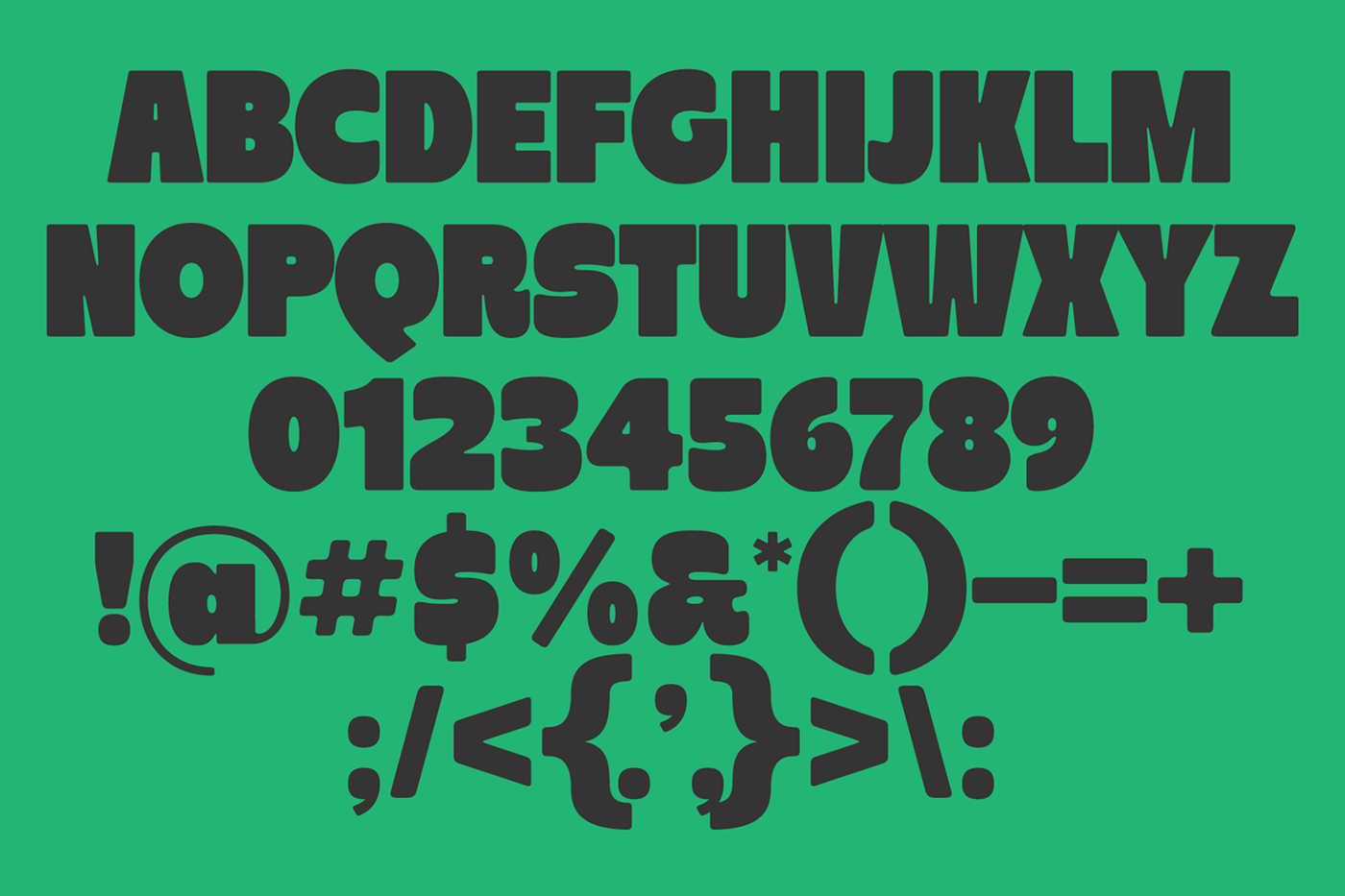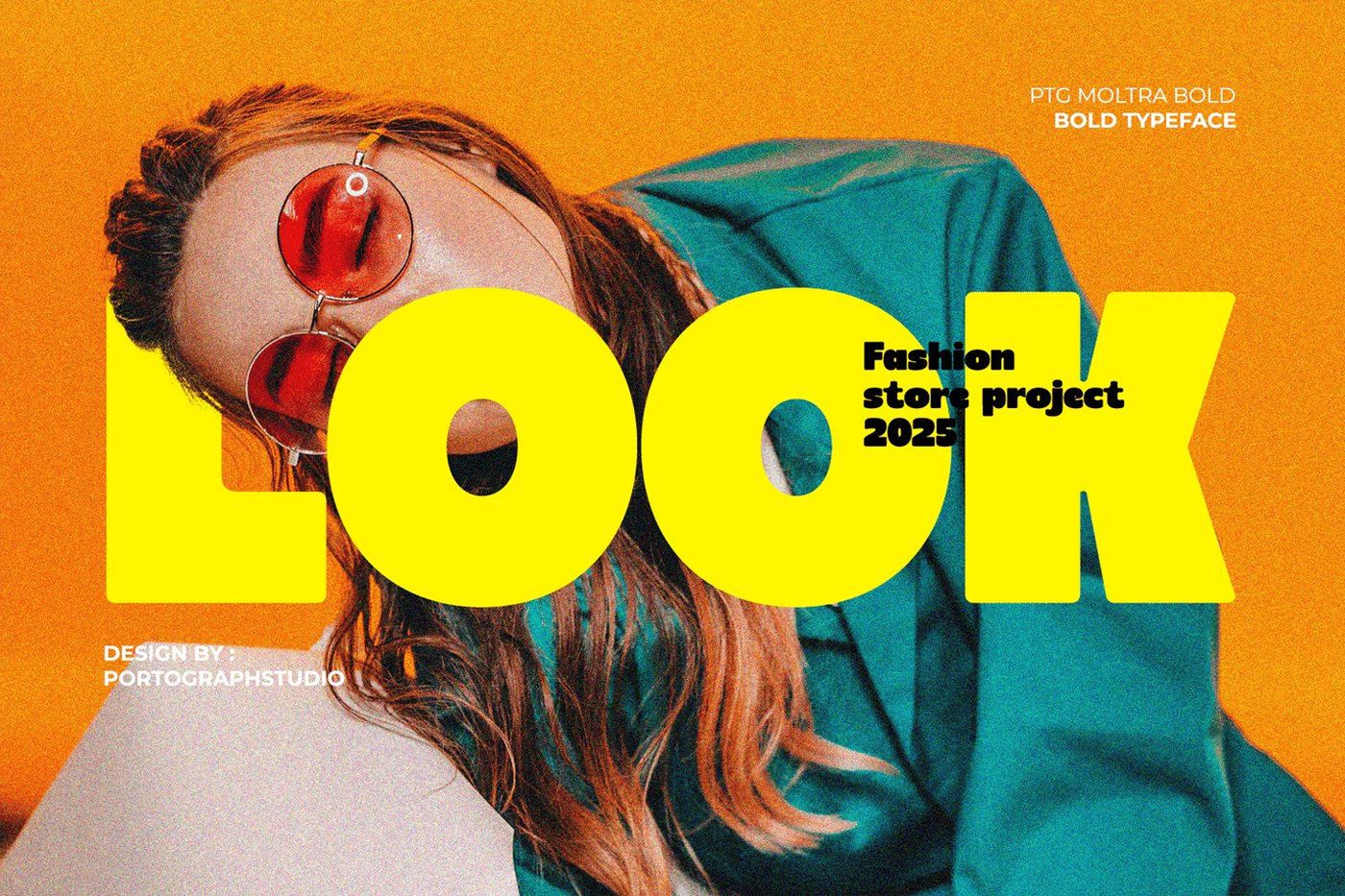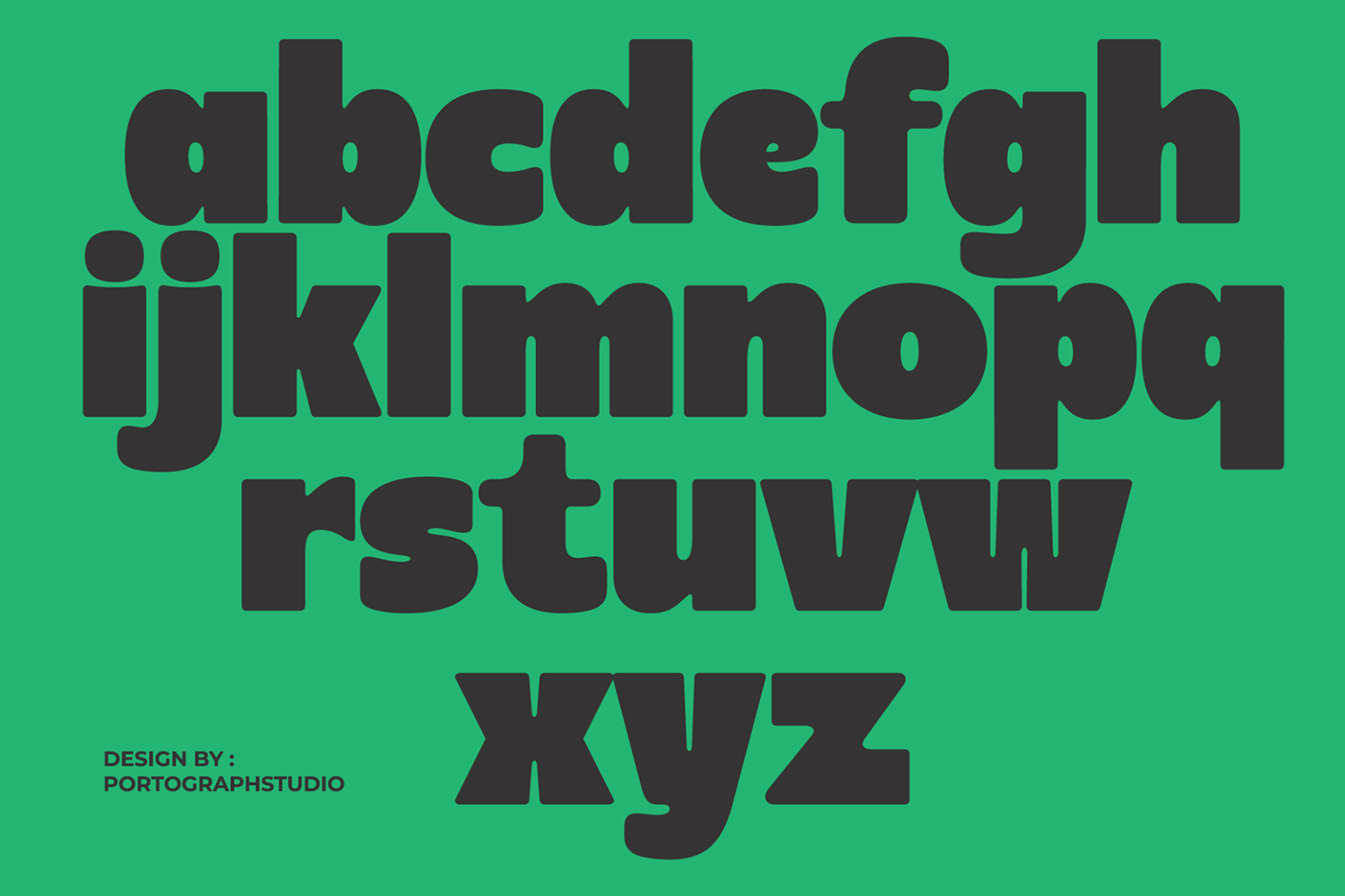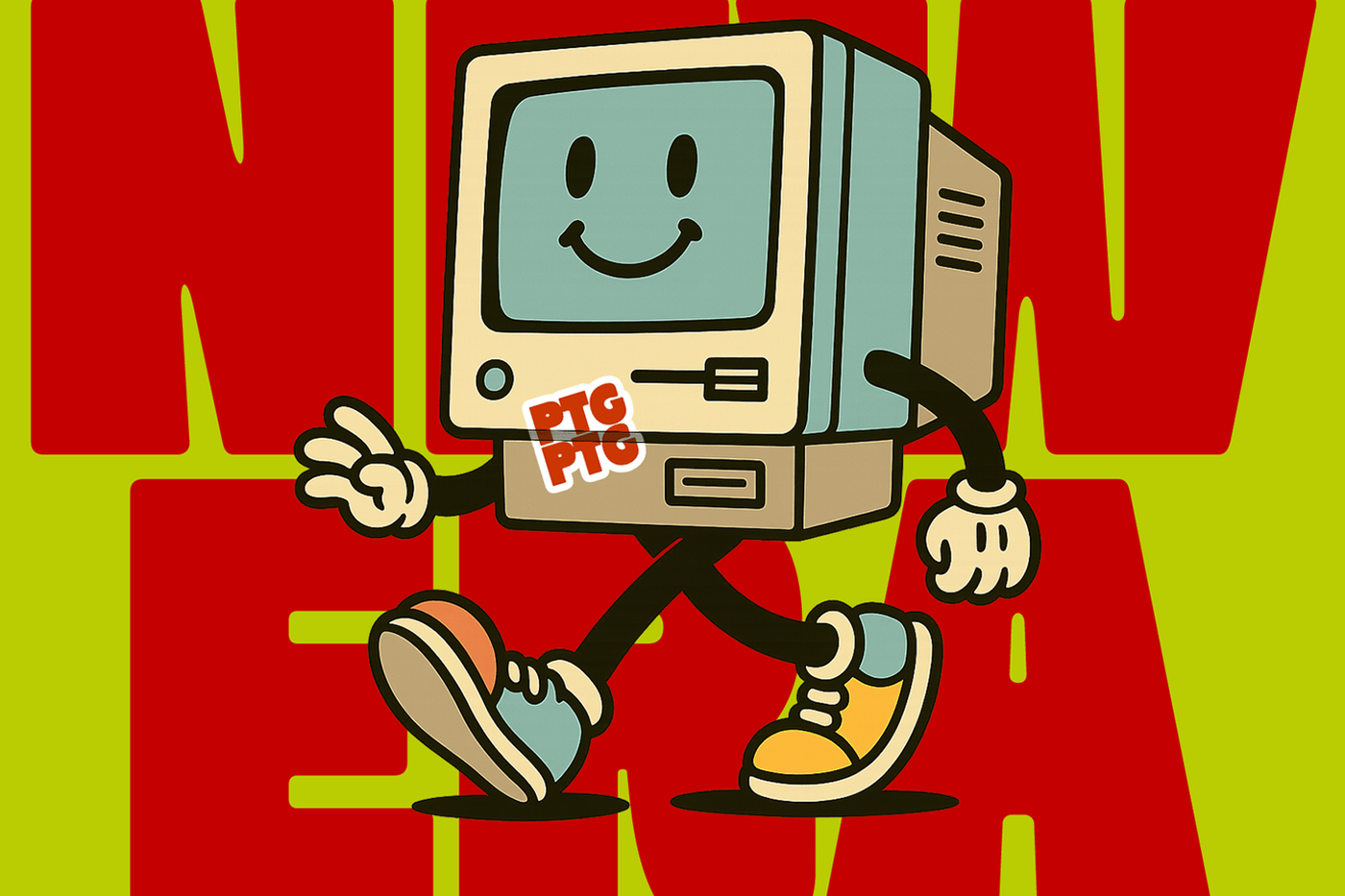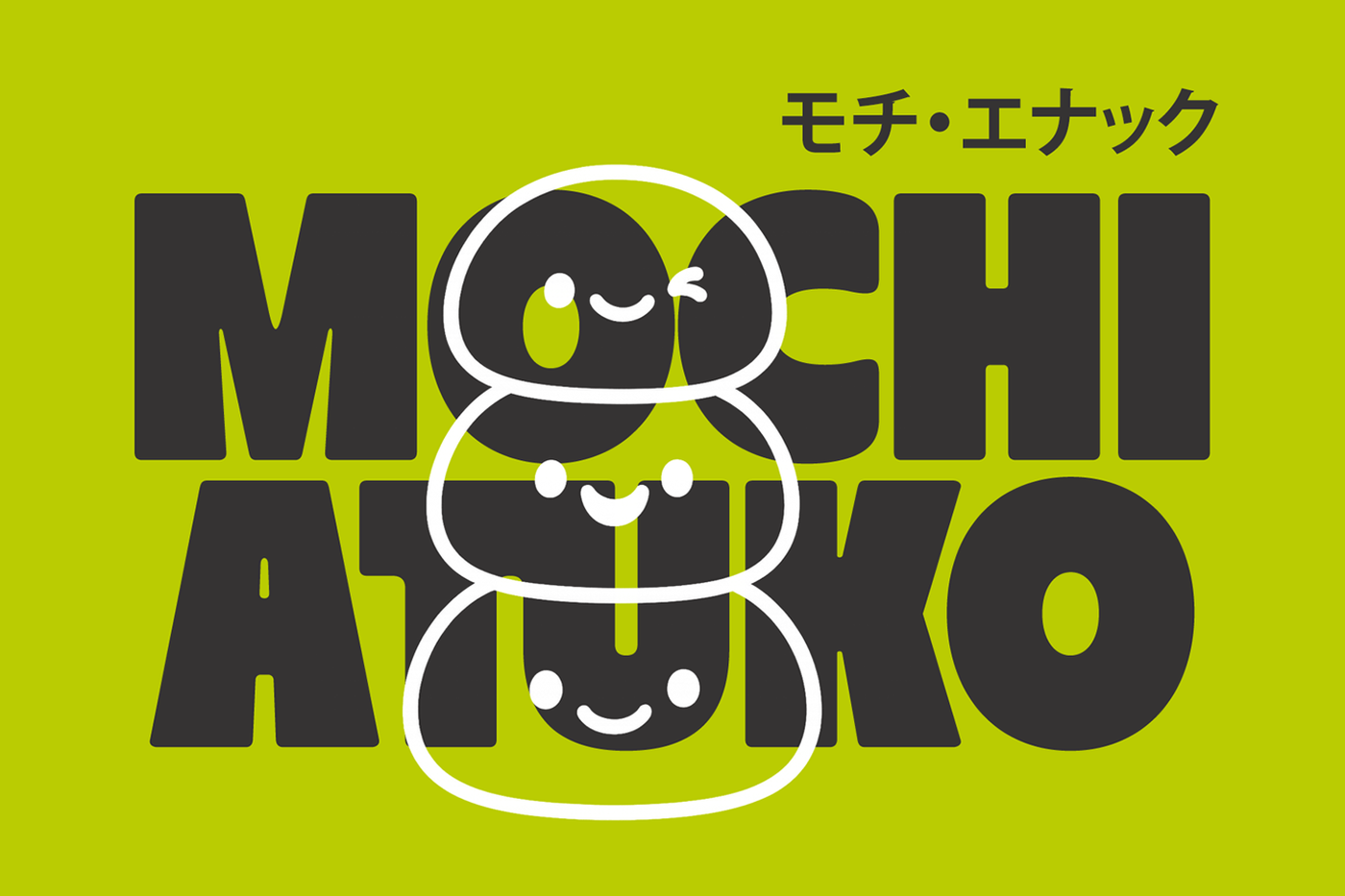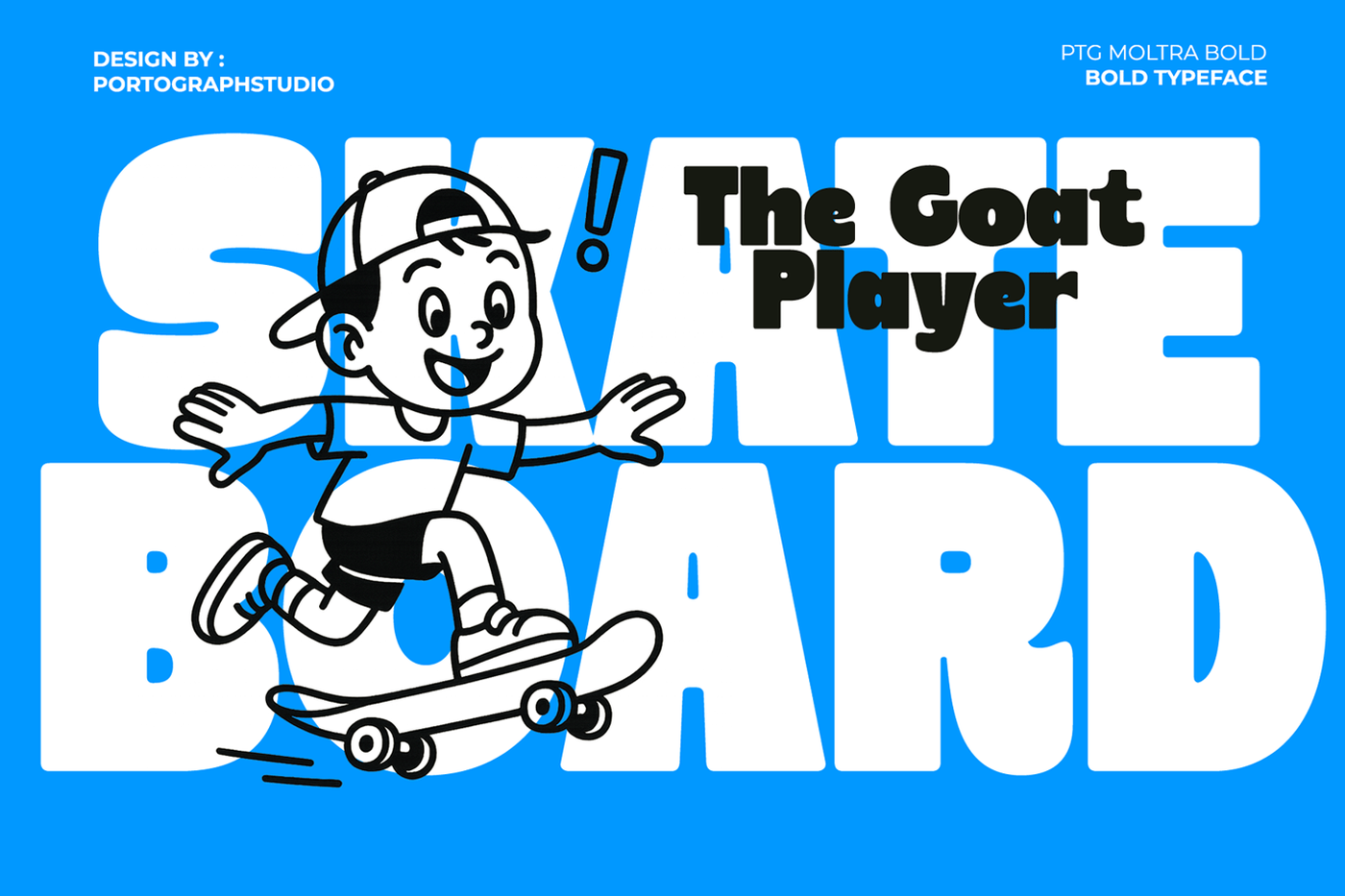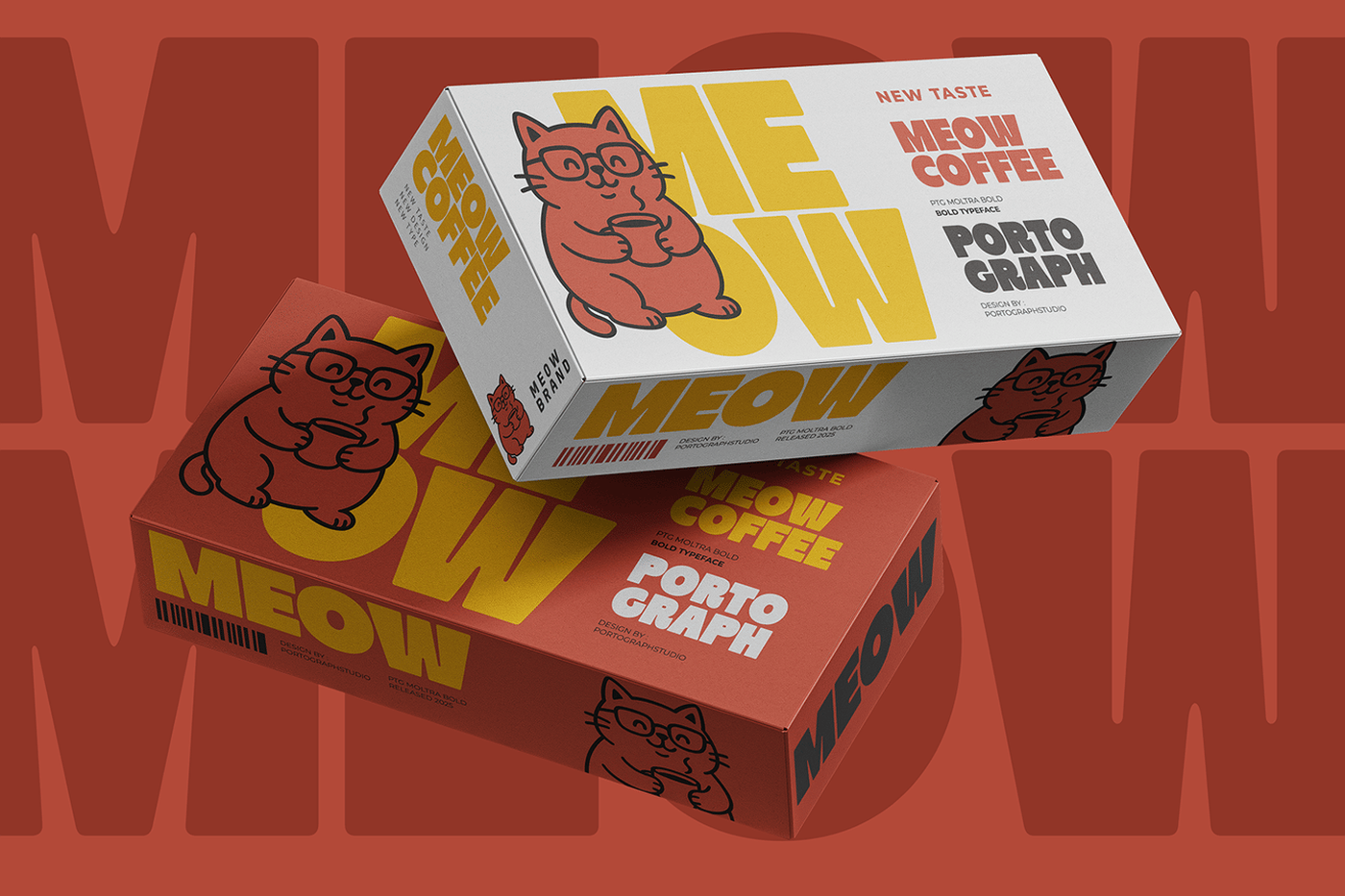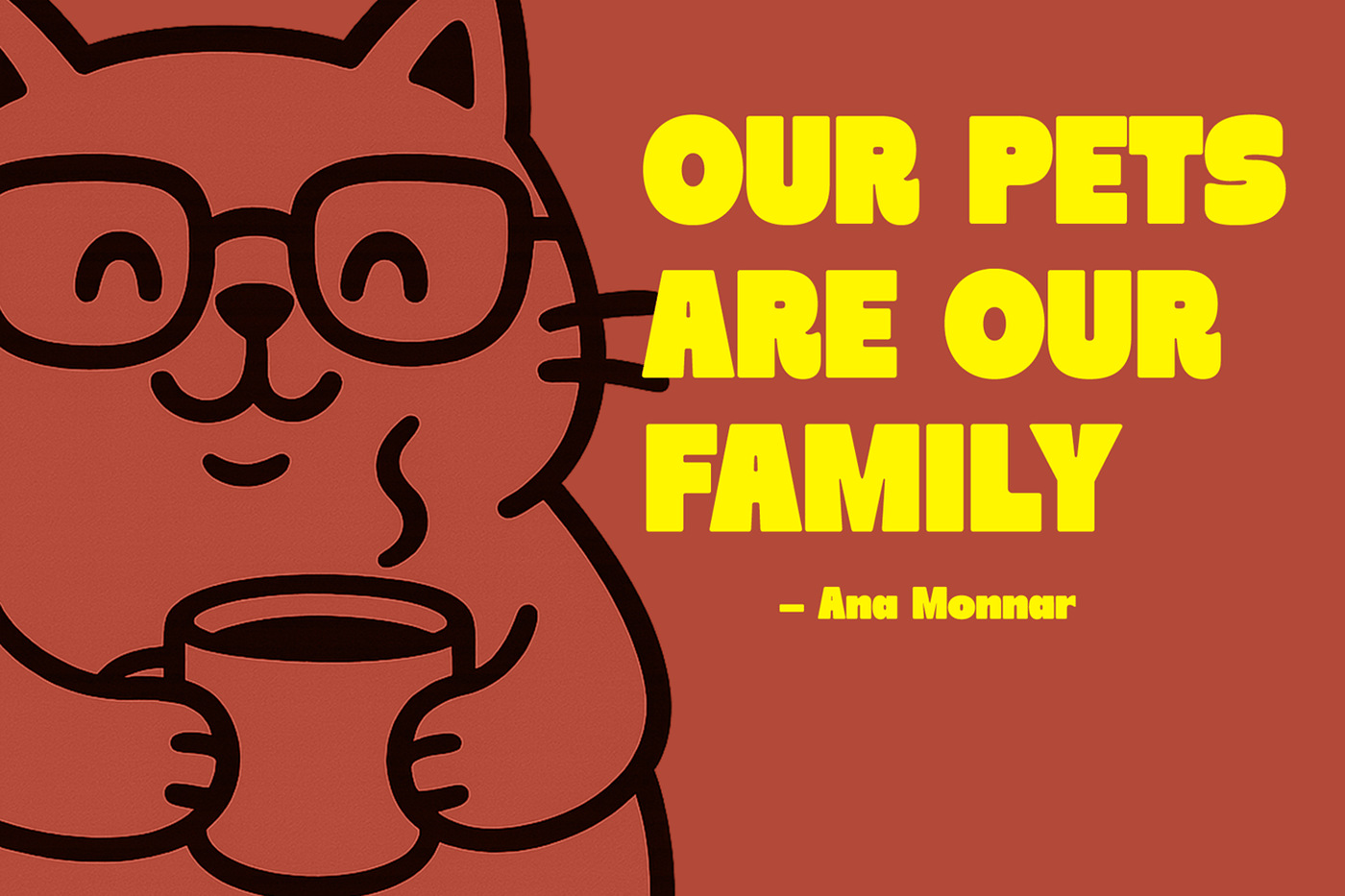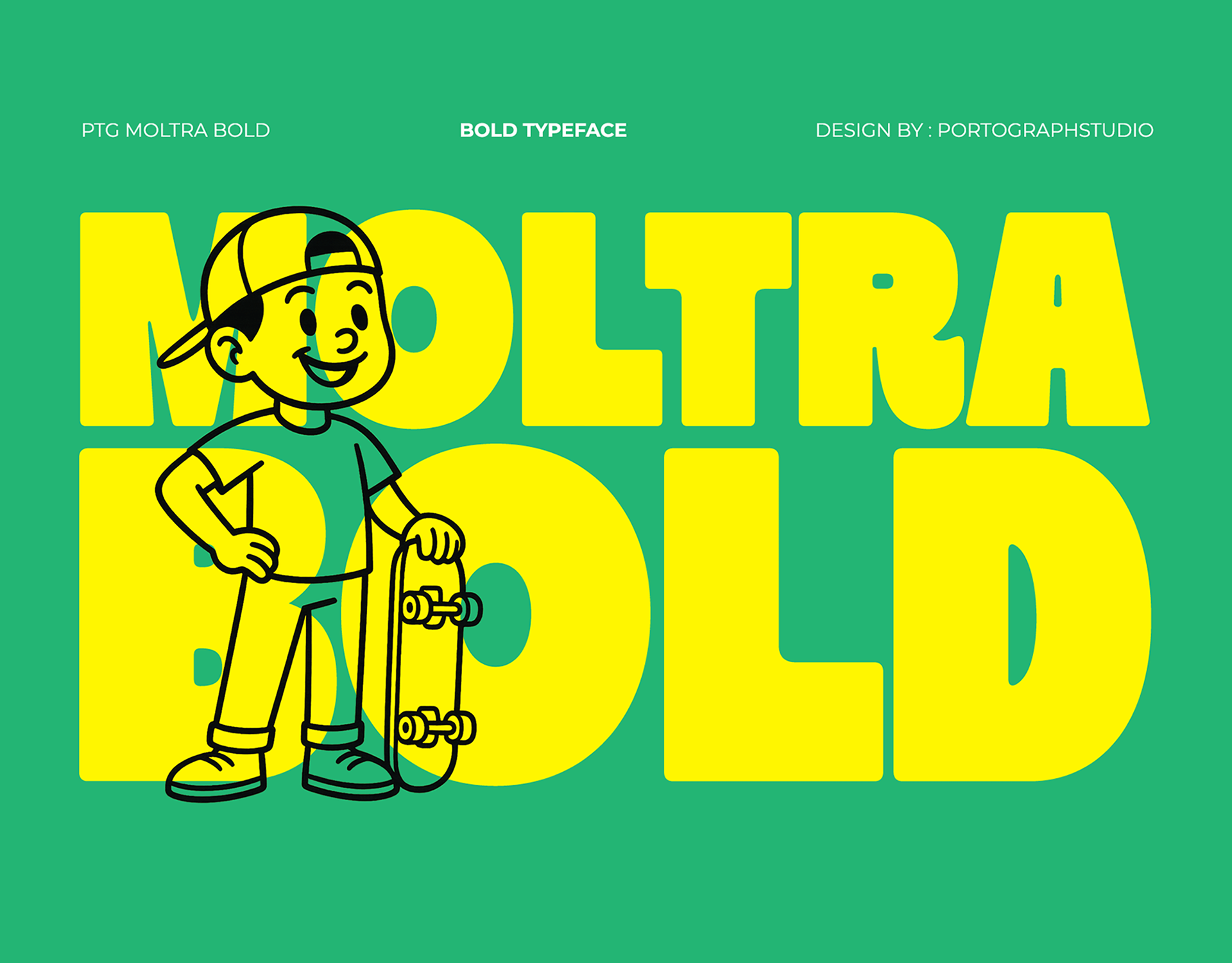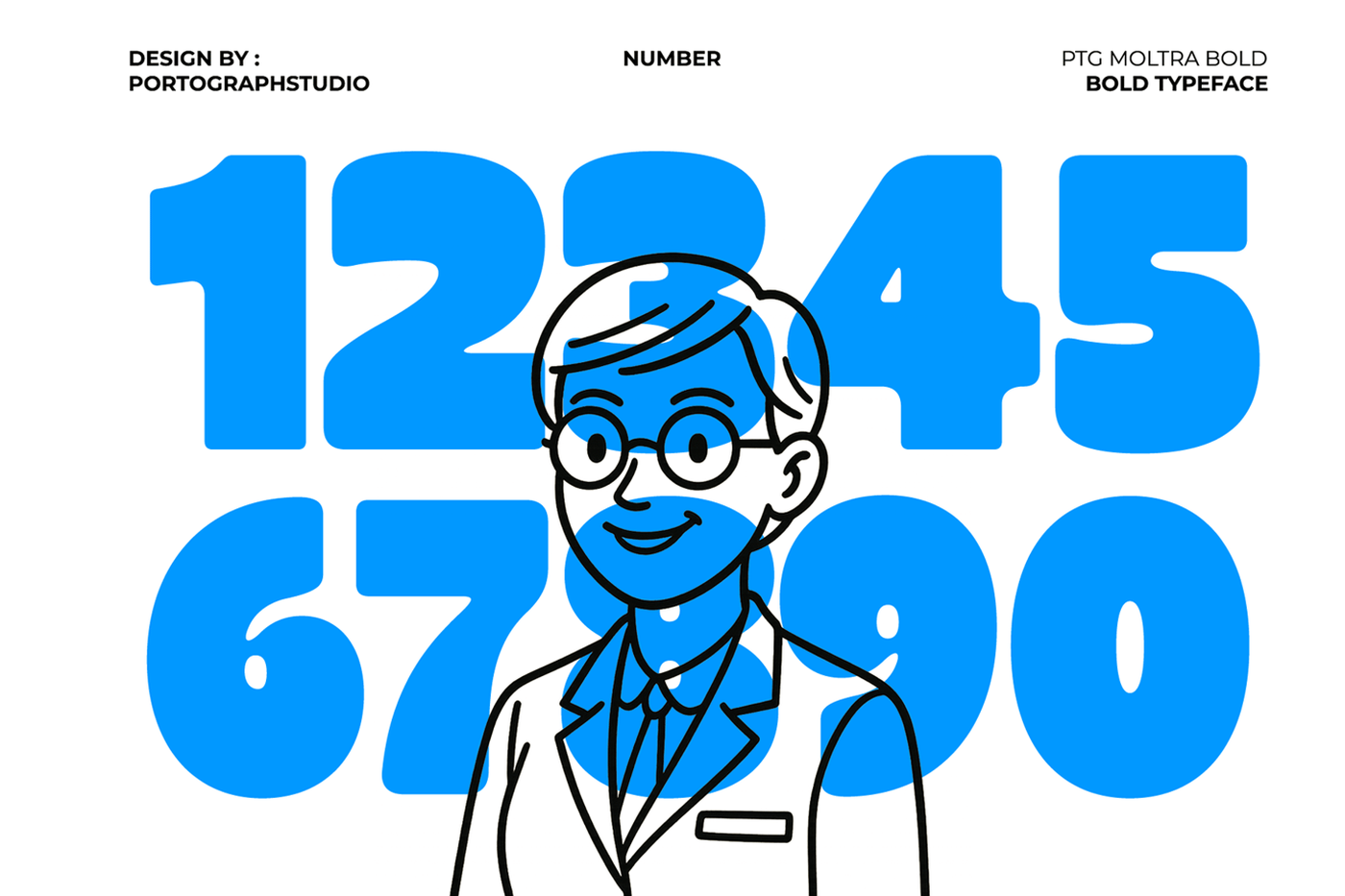
Moltra Bold - Playful Display Font
Bring fun and confidence to your design with Moltra Bold, a chunky and playful display typeface full of character. Its bold shapes and friendly curves make it perfect for branding, packaging, posters, social media graphics, and children’s projects.
Designer: Portograph
Font: Moltra